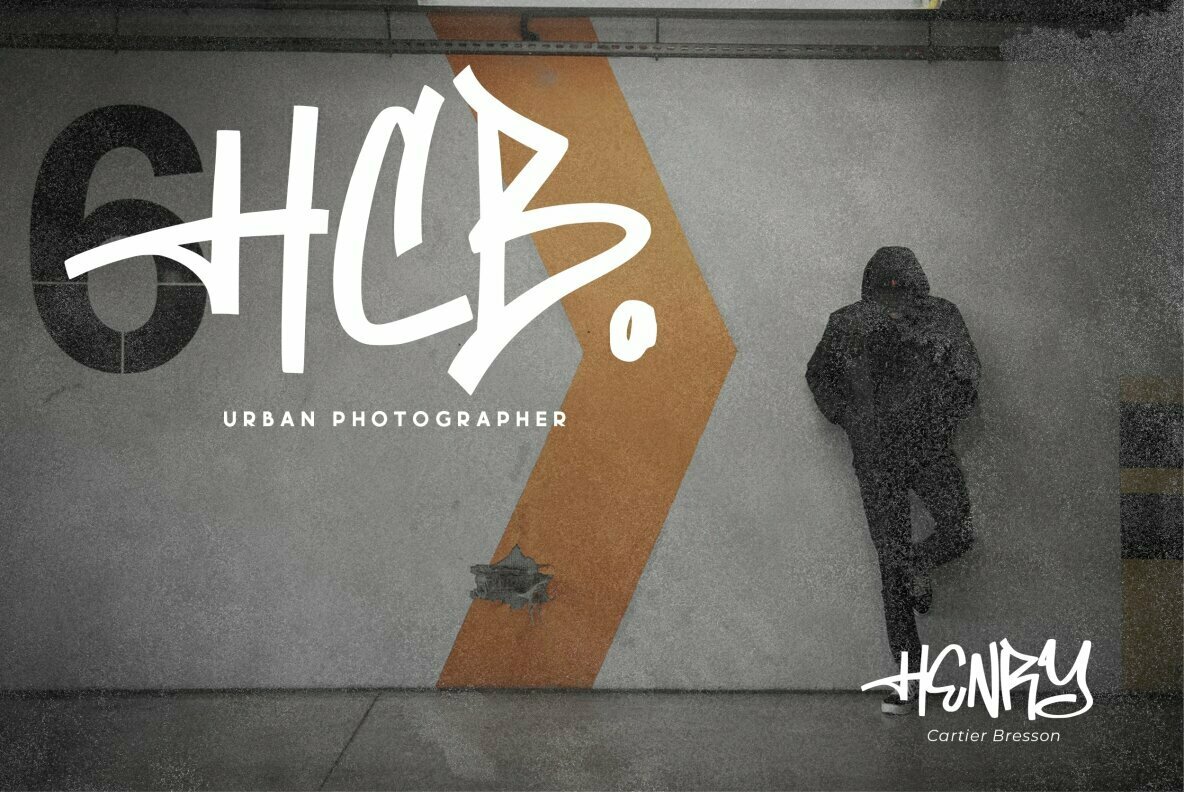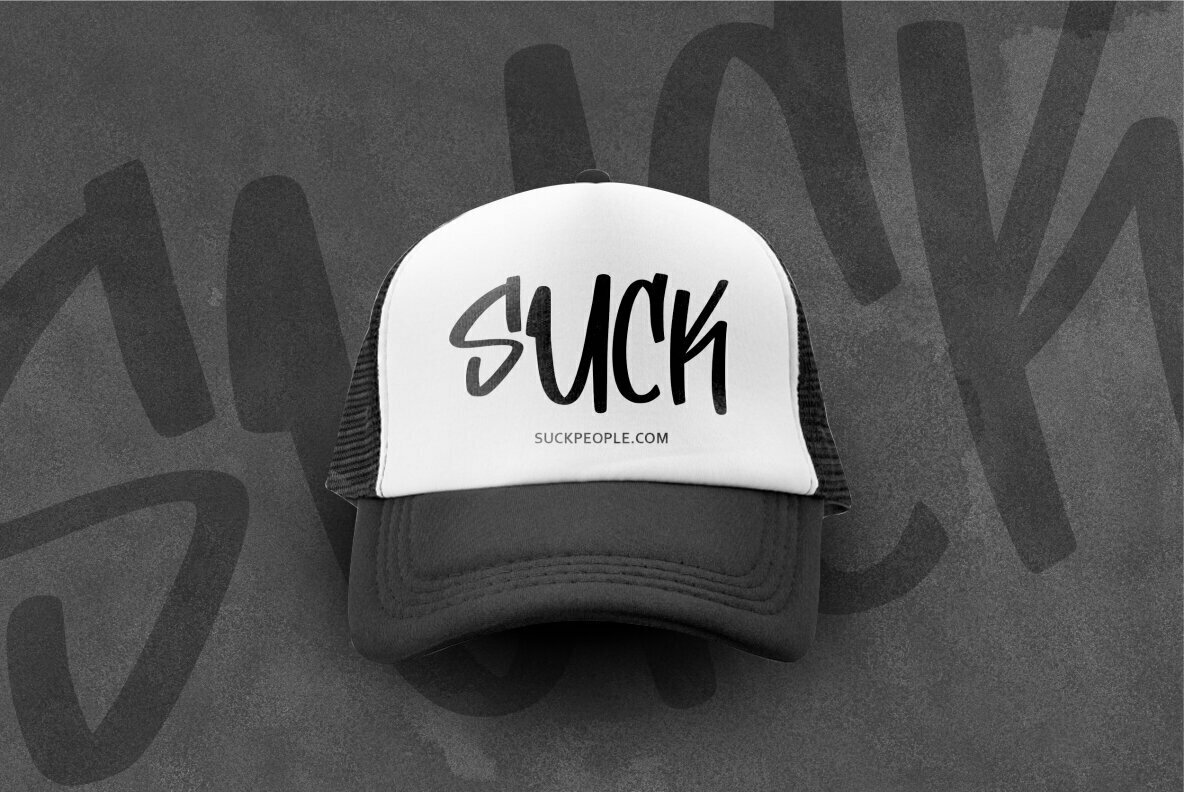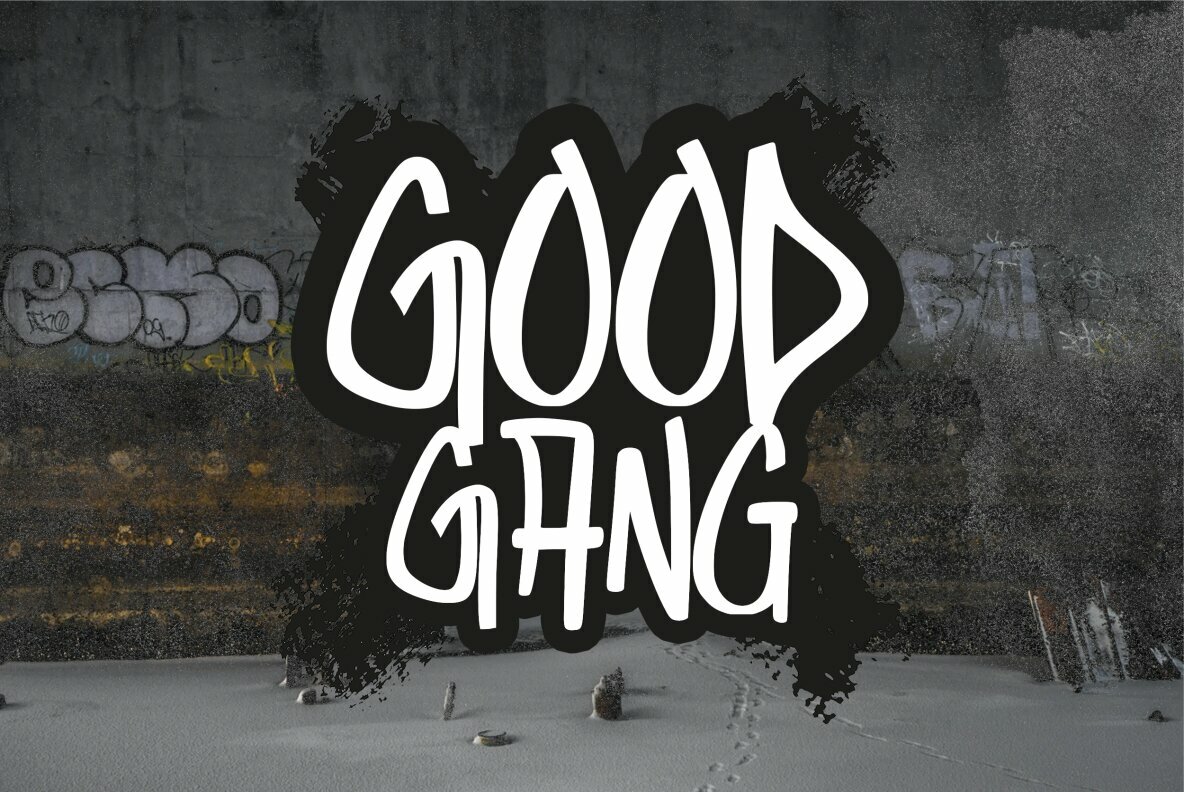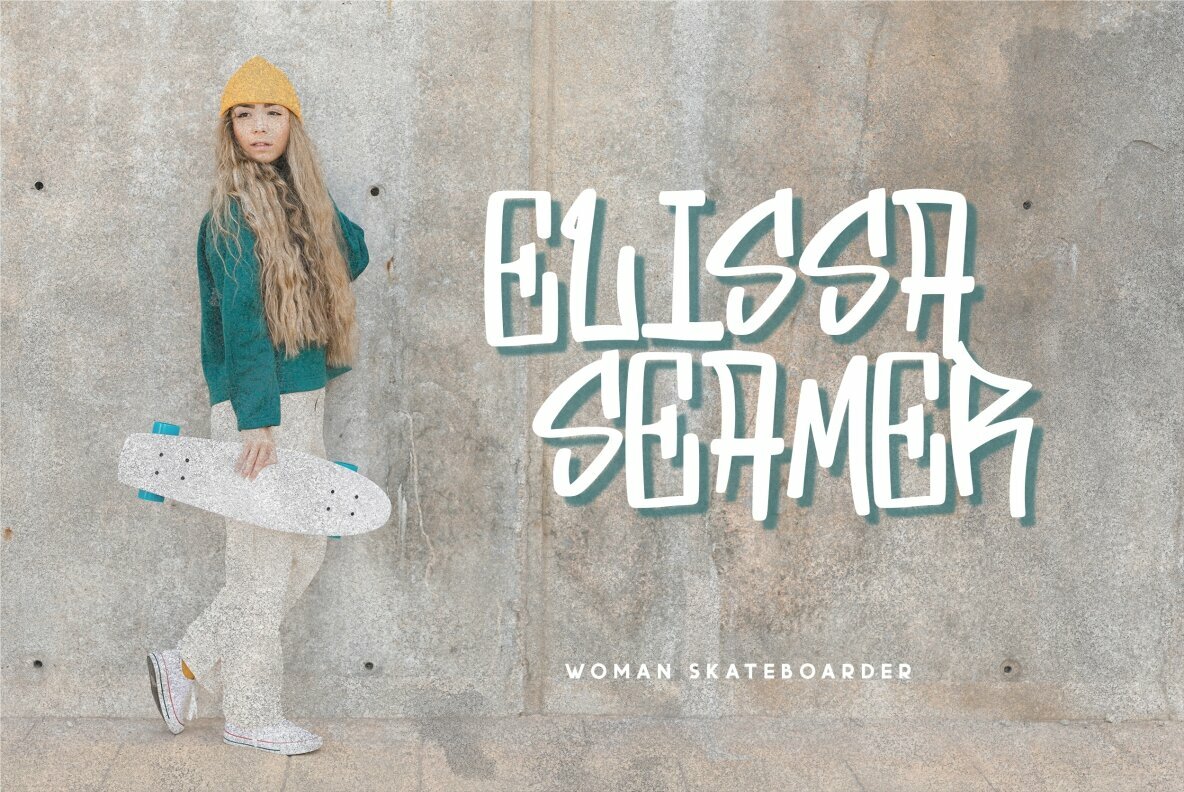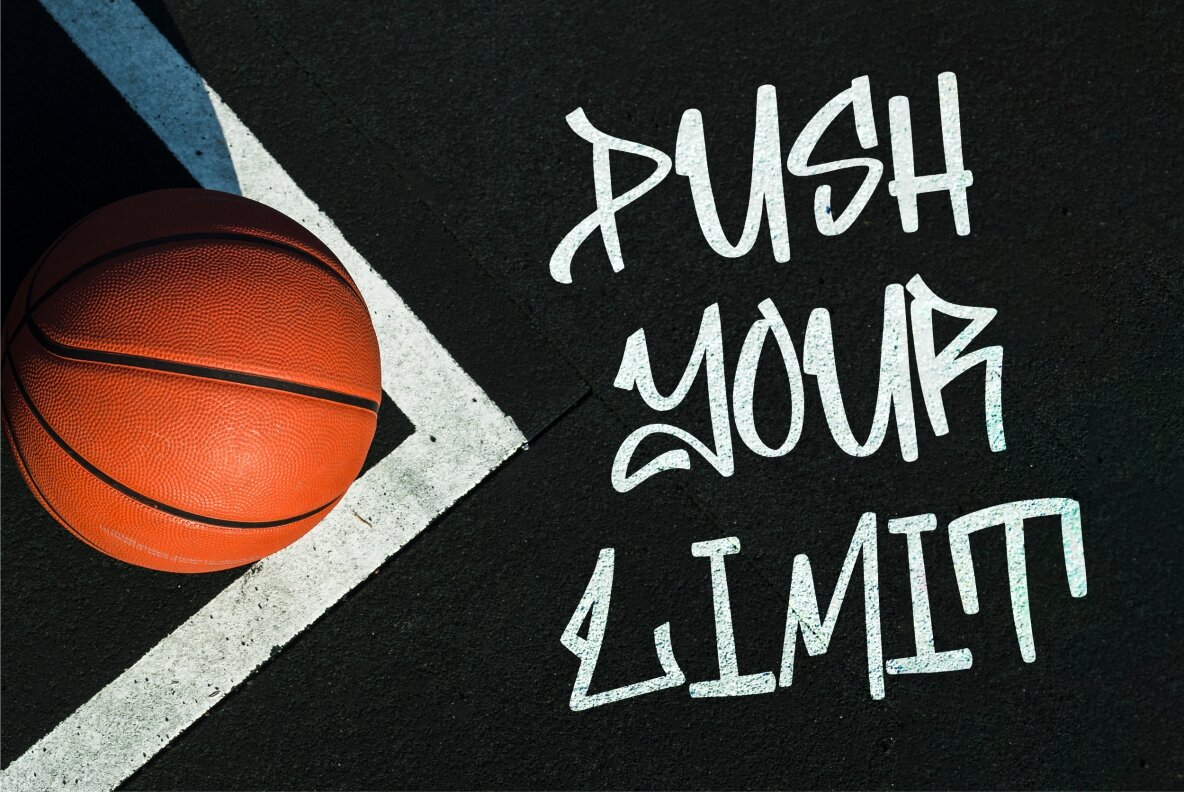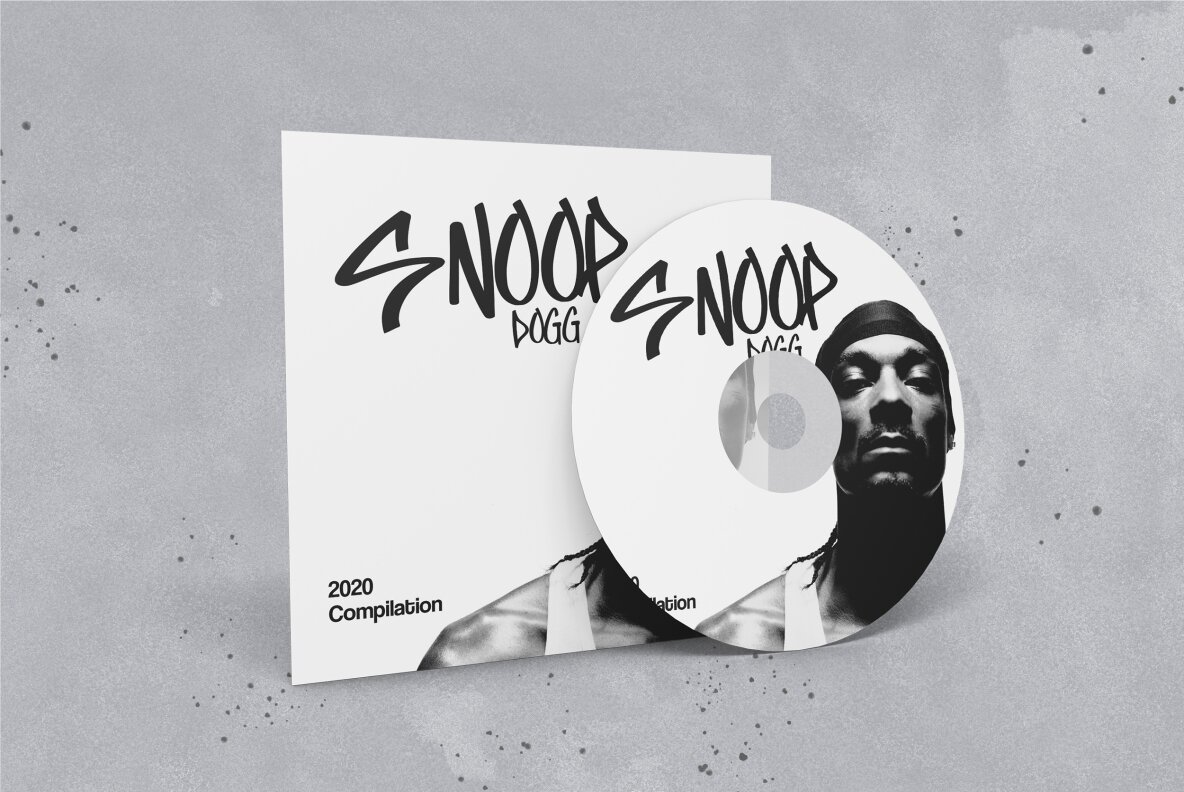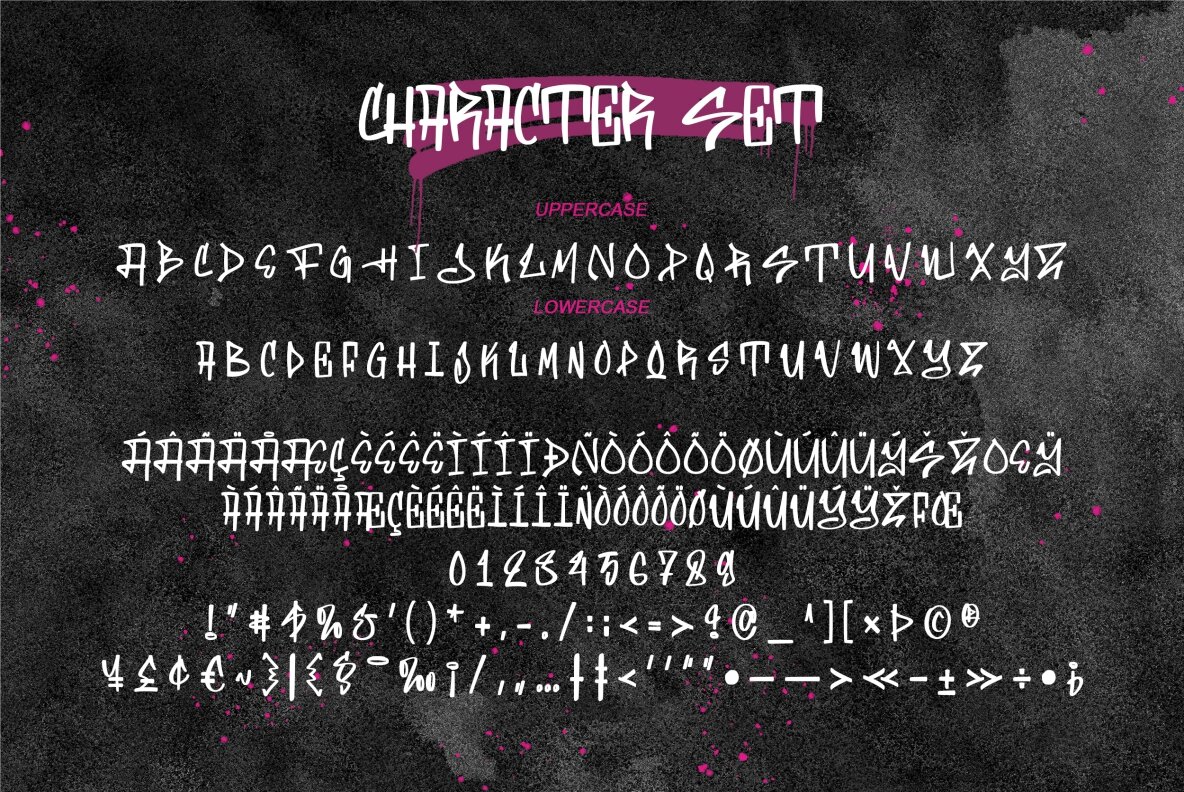
Hayword Font
Hayword
Hayword captures the vibrant spirit of street art, offering a dynamic addition to your design repertoire. This graffiti-inspired typeface brings bold expression and urban flair, making it ideal for a wide array of creative initiatives, including branding, packaging, logos, wall art, and promotional materials. Whether you're crafting a standout headline or designing an eye-catching poster, Hayword offers the versatility to elevate your project.Hayword: A Dynamic Graffiti Typeface